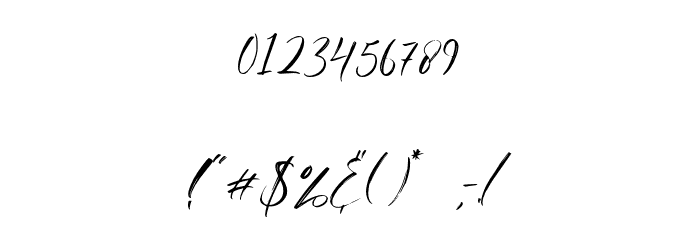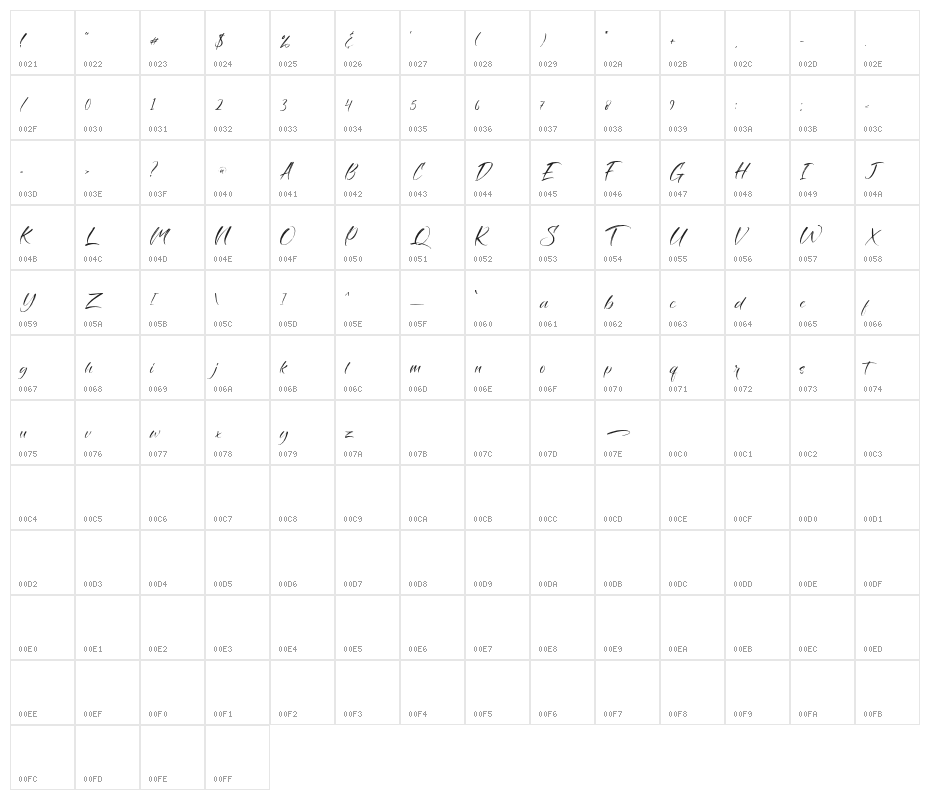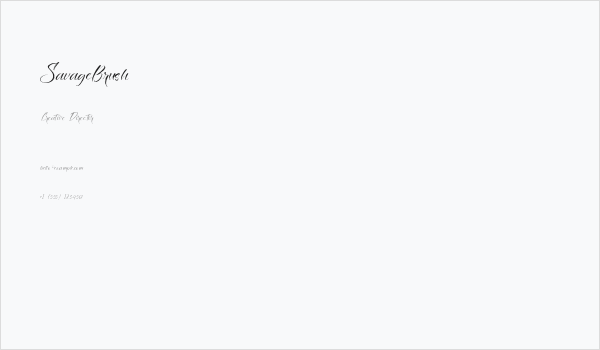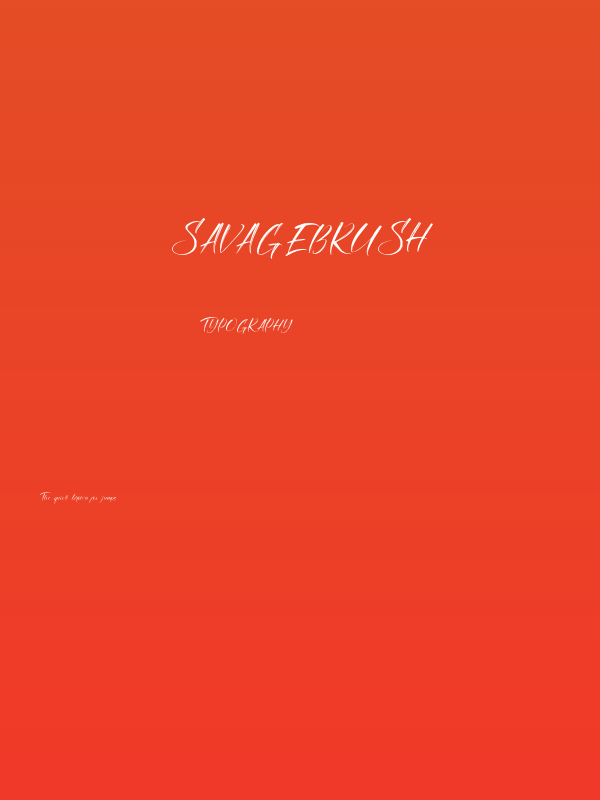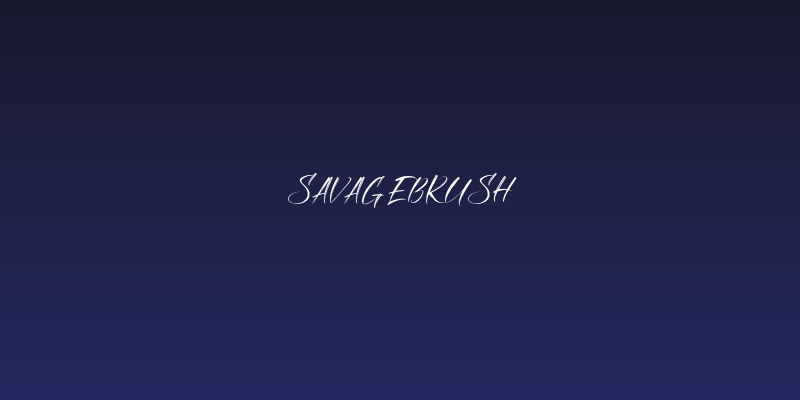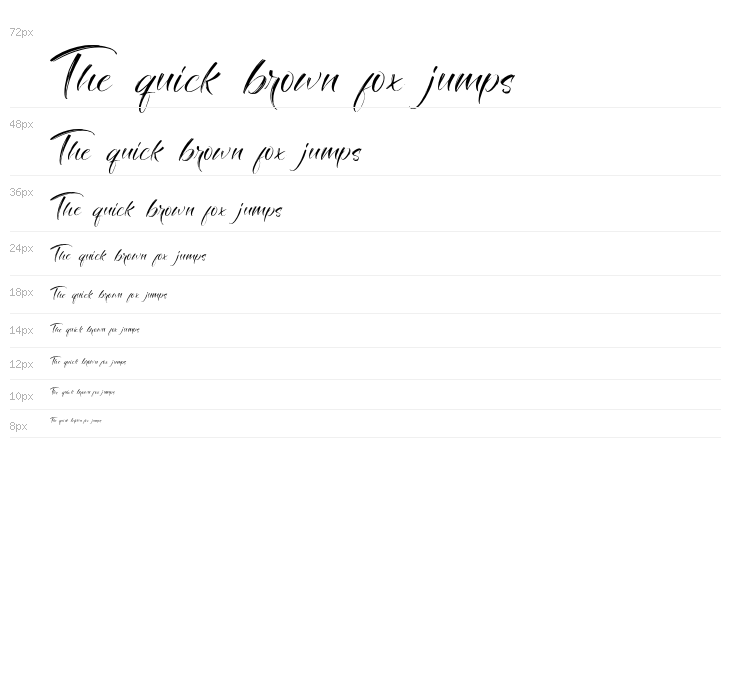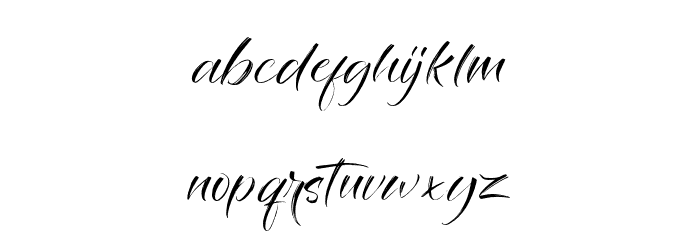
SavageBrush Font
SavageBrush Description
This font exudes a dynamic and expressive style, characterized by its fluid brush strokes and elegant curves. Each letter is crafted with a sense of movement, giving the impression of hand-painted artistry. The uppercase letters are bold and striking, while the lowercase letters maintain a graceful flow. The numbers and special characters are equally expressive, complementing the overall aesthetic. This font is perfect for projects that require a touch of sophistication and creativity, such as invitations, branding, and artistic designs. Its unique style makes it stand out, adding a personal and artistic flair to any text.
A dynamic, brush-style font with expressive, fluid strokes from Uncategorized fonts.
- Font: SavageBrush
- Proposed Projects: Ideal for invitations, branding, artistic designs, and creative projects.
- Use Case: Logos, Headlines, Artistic designs